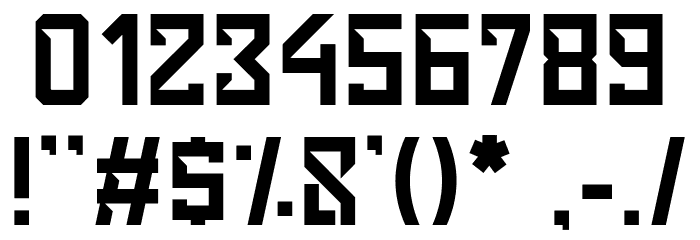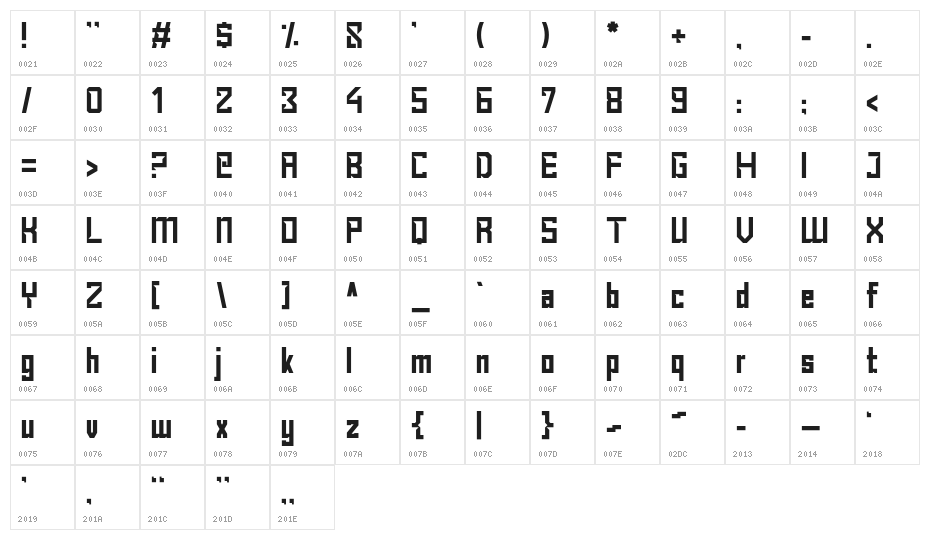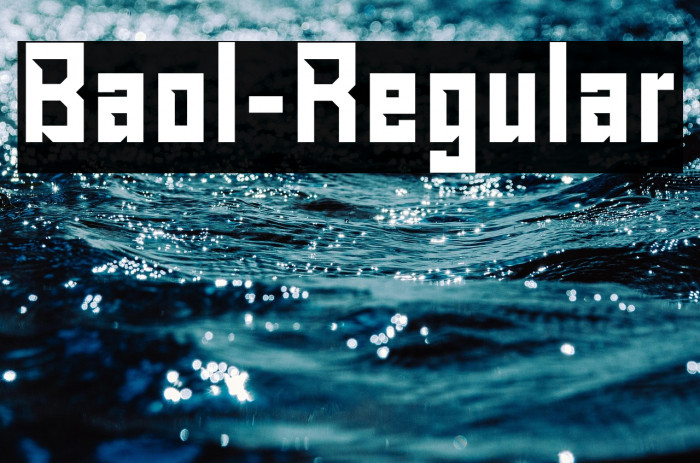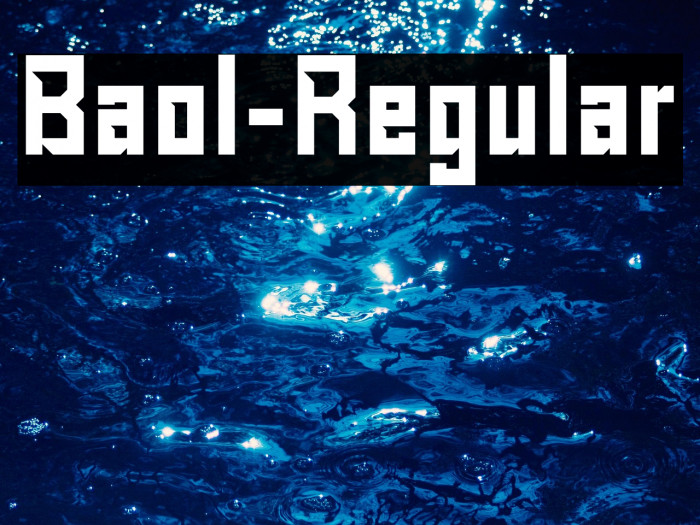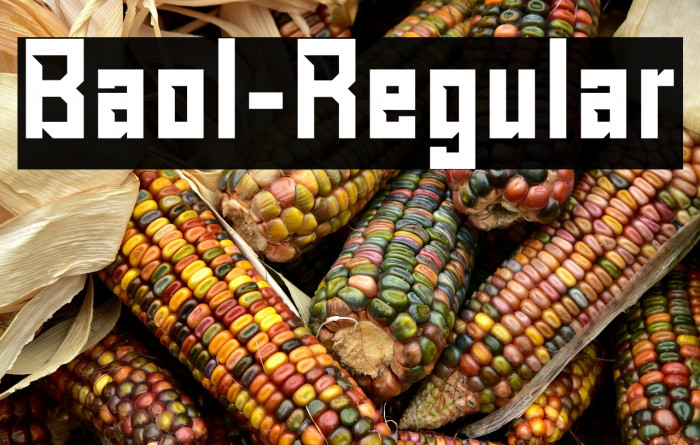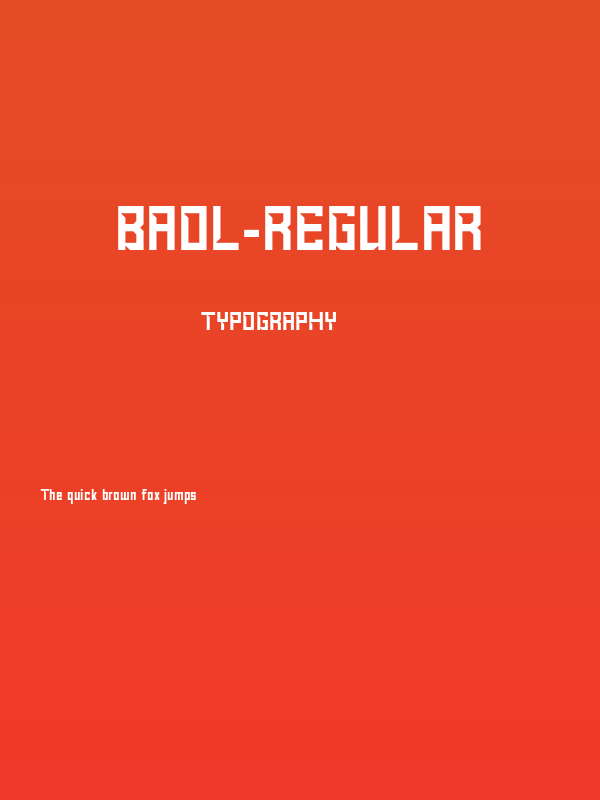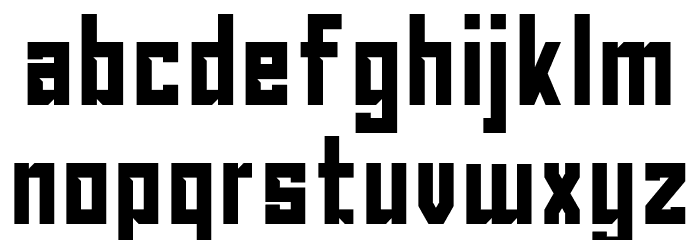
Baol-Regular Font
Baol-Regular Description
This font features a bold and geometric design with sharp, angular edges and a strong presence. The uppercase and lowercase letters maintain a consistent height, giving it a monospaced appearance. The characters are blocky and robust, with a modern and industrial feel. The numerals are equally bold, matching the style of the alphabet. Special characters are designed to complement the overall aesthetic, maintaining the same angular and bold characteristics. This font is highly legible and makes a strong visual impact.